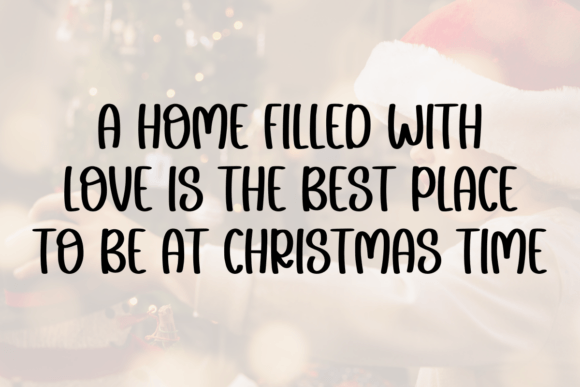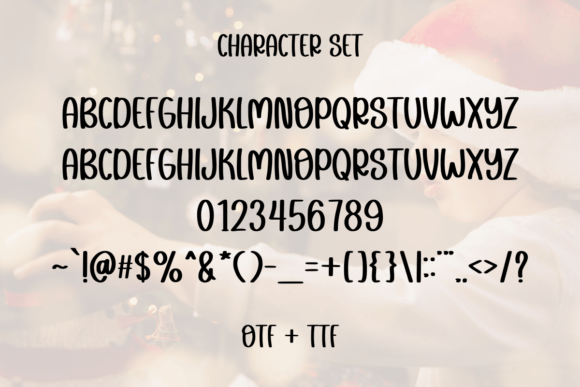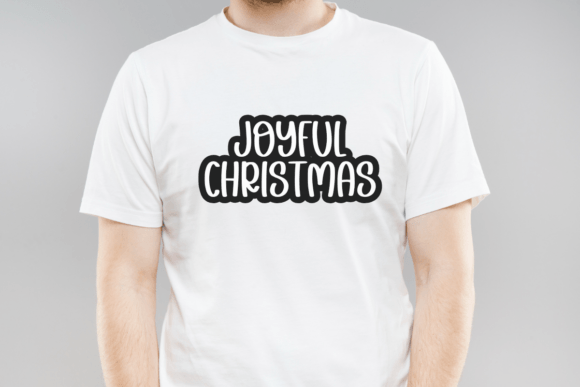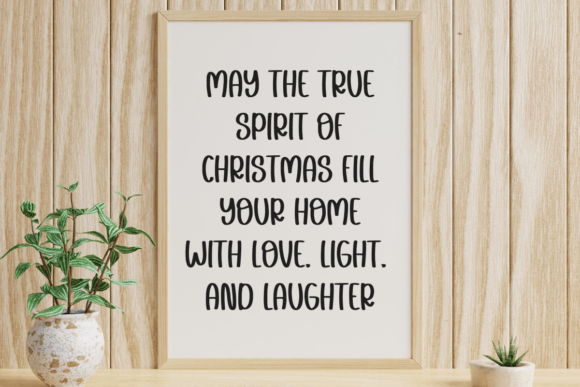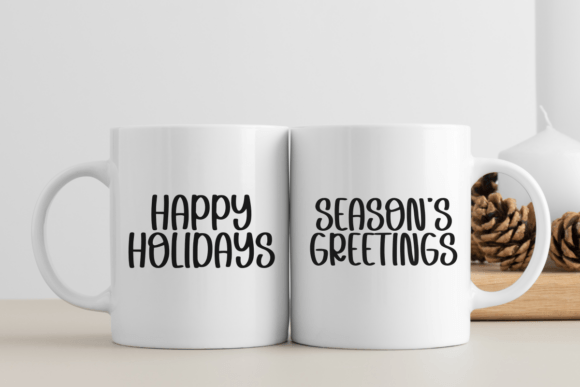
Introduction to Noel Nostalgia Font
Noel Nostalgia is a fun fun and bold sans serif font.
font inspired by birthday invitation typography This font is perfect for various designs that are retro, fun, cute, and bubbly.
Key Features of Noel Nostalgia Font